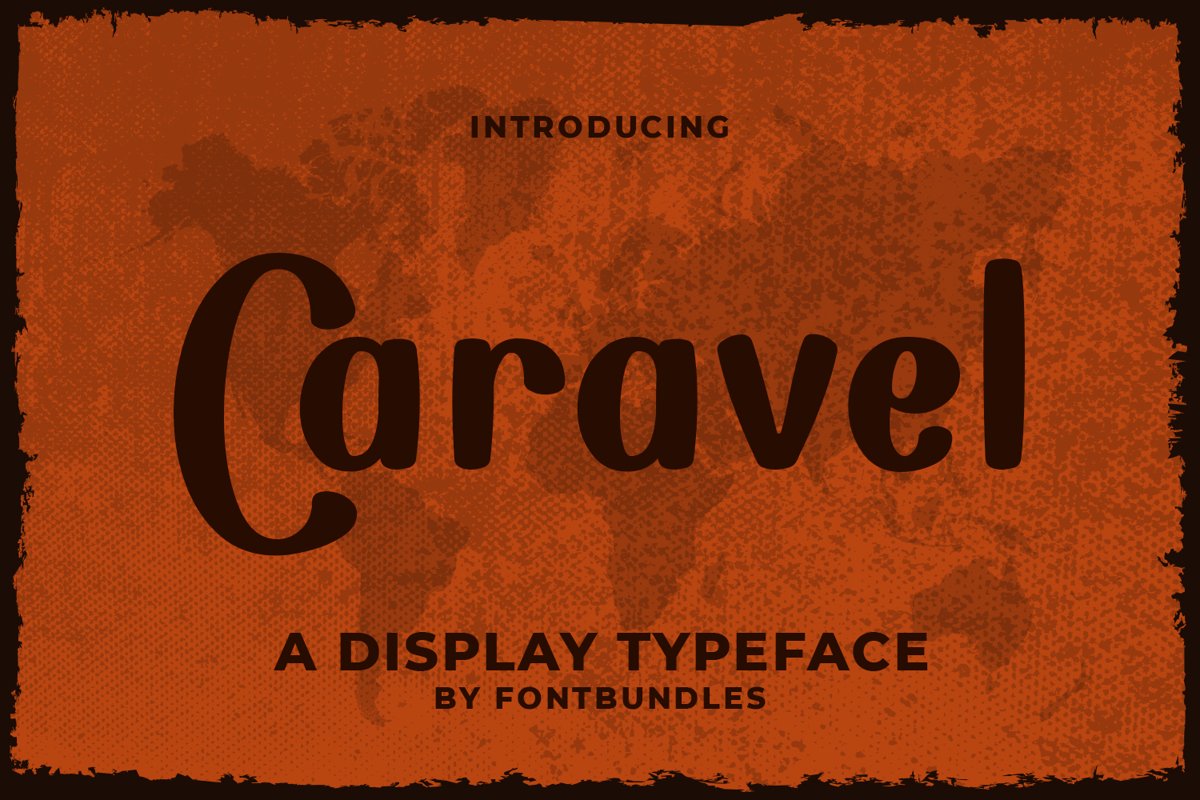
Caravel is a display typeface. Perfect for display, quotes, frame, t-shirt, business card, headline, tittle, print, packaging, merchandise and many more.